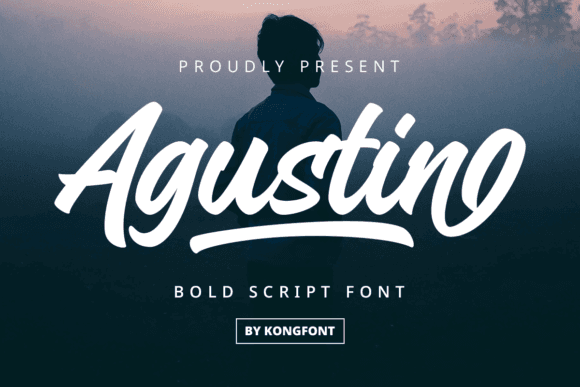
Agustin Font for Cricut, Silhouette and Printable Designs
This is a modern and clean font optimized for crafting and printing. Agustin brings versatility and clarity to Cricut, Silhouette, and print designs, offering a professional aesthetic with smooth cut compatibility. With its sleek lines and easy readability, Agustin is perfect for both intricate projects and bold statements. Many users appreciate how the ashod font features for crafting enhance their designs, allowing for a seamless blend of style and function. Whether you're creating personalized gifts or stunning decor, Agustin elevates every project with its unique charm.
As a font entity, Agustin combines legibility and sophistication, ideal for creating personalized crafts, signage, branding assets, and printable artwork. It welds beautifully and maintains form across cut or print formats.
Whether you're a hobbyist or a seller, this font adds elegance and reliability to every creative project.
- Optimized for Cricut and Silhouette workflows
- Clean strokes for easy cutting and printing
- Elegant yet versatile for many themes
Q: What kind of font is Agustin?
A: Agustin is a clean, modern font designed for crafting, cutting machines, and printable design projects.